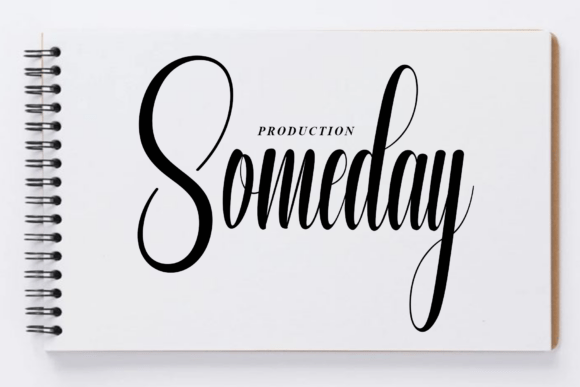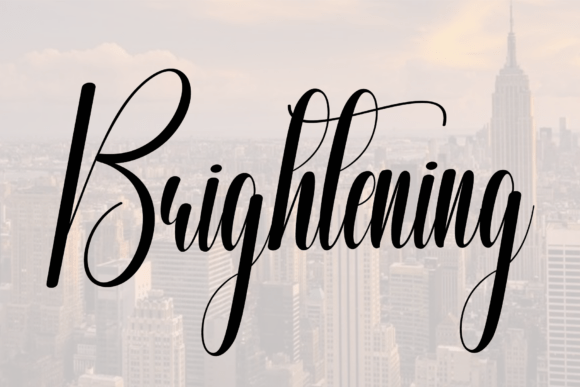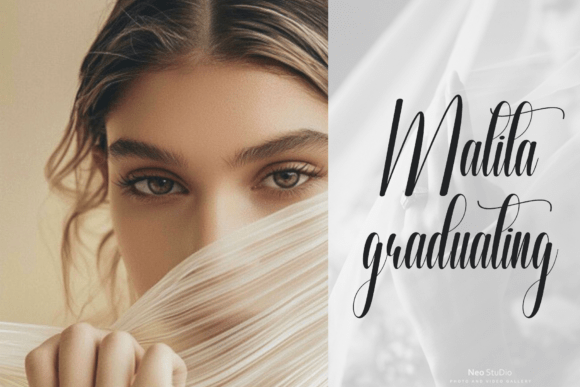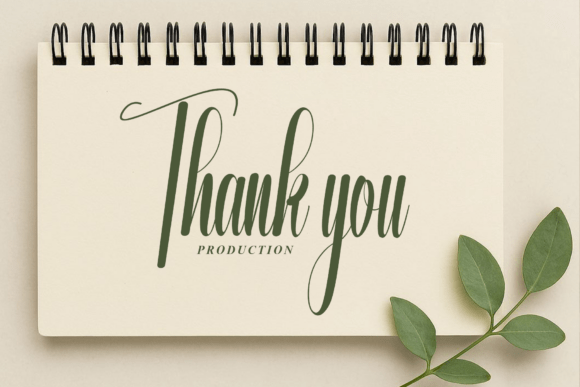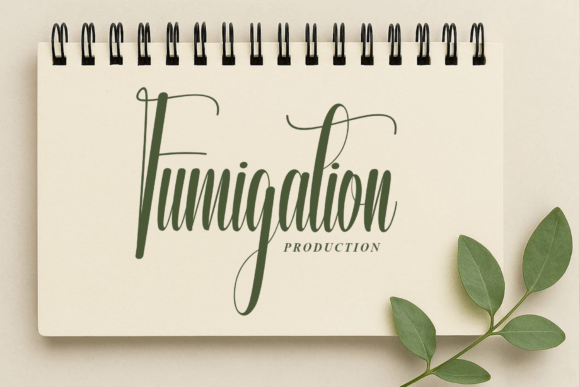
Fumigation Font: A Lovely and Timeless Handwritten Font for Designers and Crafters
In the world of typography, a good font can make all the difference in creating visually appealing designs. For designers and crafters looking for a unique and beautiful font, Fumigation Font is an excellent choice. This lovely and timeless handwritten font is perfect for creating eye-catching logos, branding, and quotes that will leave a lasting impression.
What Makes Fumigation Font Special?
Fumigation Font stands out from other fonts due to its distinctive and elegant handwritten style. Every letter has a unique and beautiful touch, which will make your design come alive. The font’s classic and timeless look makes it suitable for a wide range of design projects, from modern logos to vintage-inspired branding.
Key Features of Fumigation Font
- Handwritten Style: Fumigation Font boasts a beautiful handwritten style that adds a personal touch to any design.
- Unique Lettering: Each letter has a unique and beautiful touch, making your design stand out from the crowd.
- Timeless Look: The font’s classic look makes it suitable for a wide range of design projects, from modern to vintage-inspired designs.
- Eyecatching Logos: Fumigation Font is perfect for creating eye-catching logos that will leave a lasting impression.
- Branding and Quotes: The font is also ideal for creating beautiful branding and quotes that will add a touch of elegance to any design.
Why Designers and Crafters Love Fumigation Font
Fumigation Font has become a favorite among designers and crafters due to its versatility and aesthetic appeal. Here are some reasons why:
- Easy to Read: The font is easy to read, making it perfect for body text and captions.
- Highly Versatile: Fumigation Font can be used for a wide range of design projects, from logos and branding to quotes and posters.
- Customizable: The font can be customized to fit your design needs, making it perfect for creating unique and personalized designs.
- Beautiful and Elegant: Fumigation Font adds a touch of elegance and sophistication to any design, making it perfect for high-end branding and designs.
Tips for Using Fumigation Font in Your Designs
Here are some tips for using Fumigation Font in your designs:
- Pair with Other Fonts: Pair Fumigation Font with other fonts to create a unique and visually appealing design.
- Use for Headings and Titles: Use Fumigation Font for headings and titles to add a touch of elegance and sophistication.
- Keep it Simple: Keep your design simple and clean to let Fumigation Font shine.
Fumigation Font is a lovely and timeless handwritten font that is perfect for designers and crafters looking to add a touch of elegance and sophistication to their designs. With its unique and beautiful lettering, classic look, and versatility, Fumigation Font is an excellent choice for creating eye-catching logos, branding, and quotes. Whether you’re a designer or crafter, Fumigation Font is sure to become a favorite in your font collection.